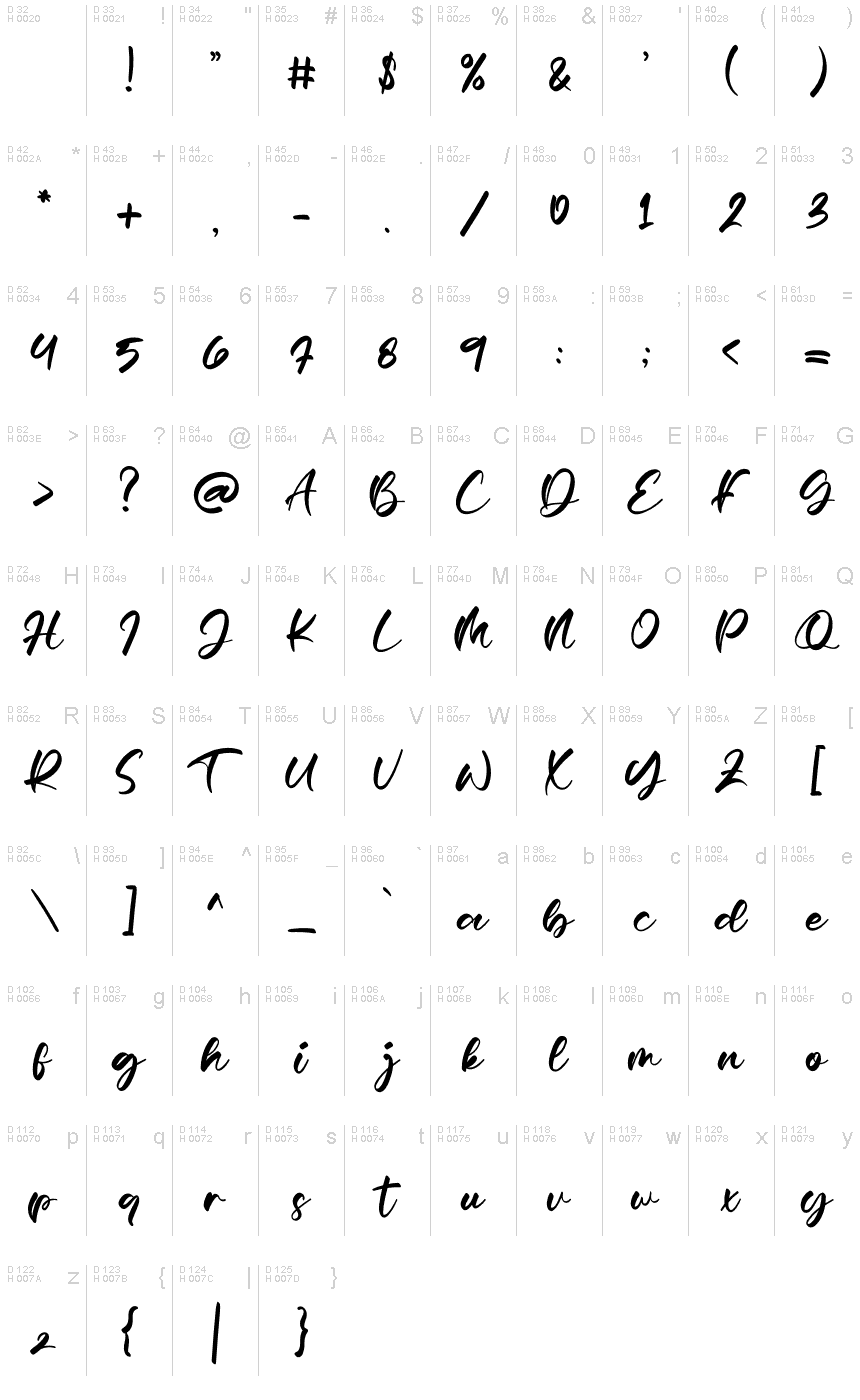
Darkline
Darkline, a stunning handwritten marker font designed by Behind the Ink, is perfect for a range of creative projects. Its semi-bold typeface and thick lines make it ideal for eye-catching headlines, while its handwritten style adds a personal touch to any design project. Whether you're creating posters, flyers or social media graphics, Darkline will help bring your ideas to life. With its edgy vibe and modern appeal, this versatile font is ideal for fashion campaigns, urban streetwear brands or even tattoo designs. Give your next project an edge with Darkline font!